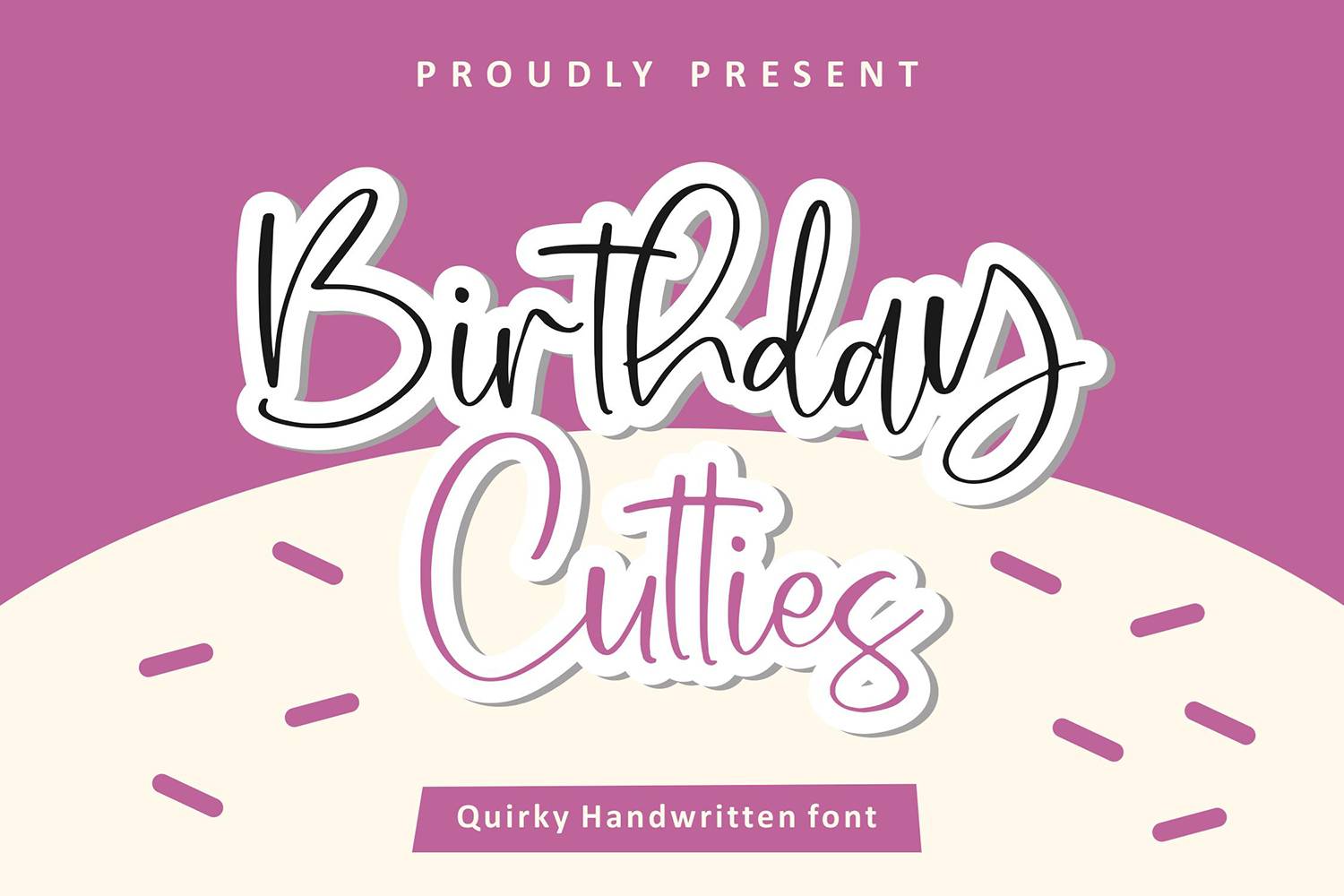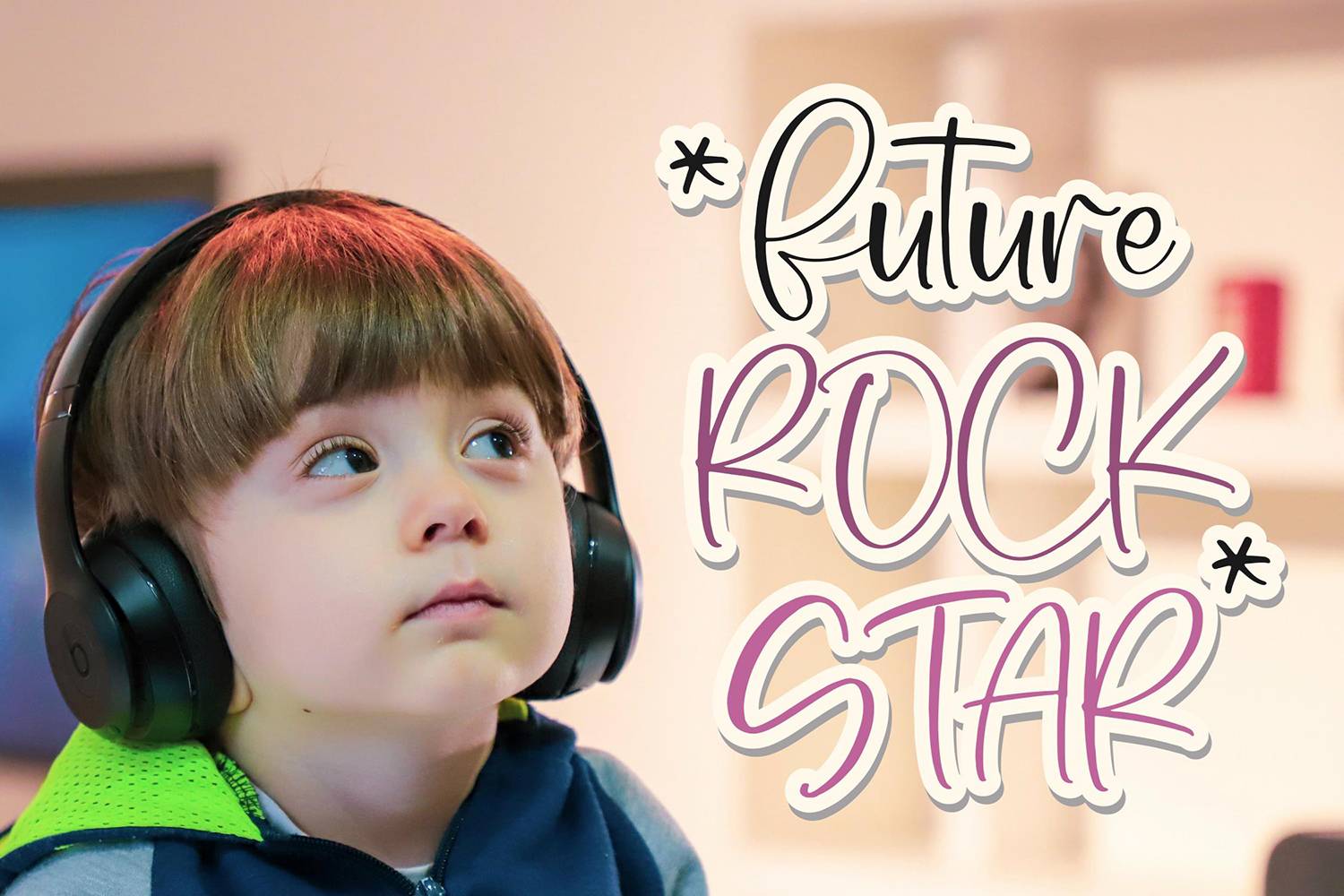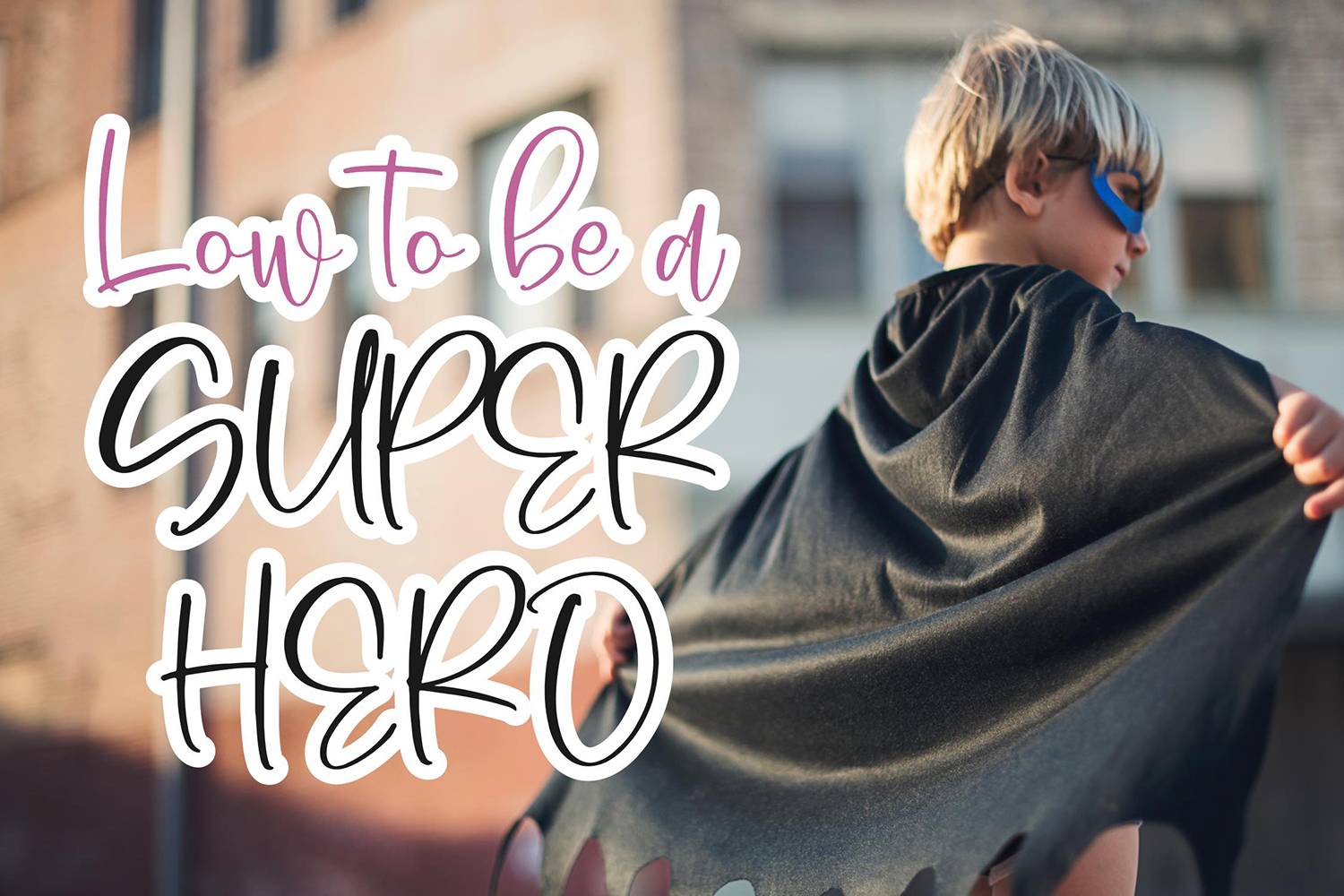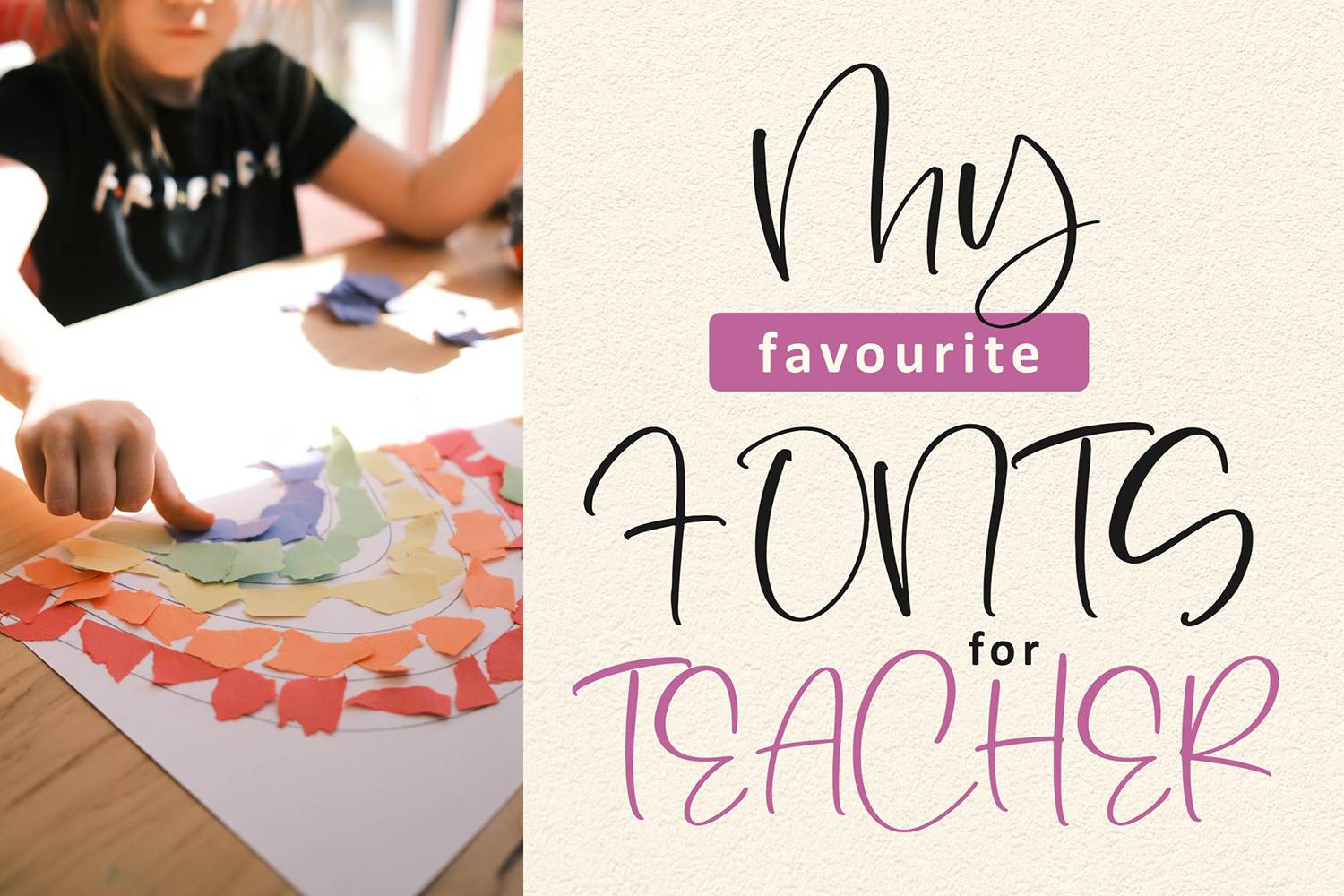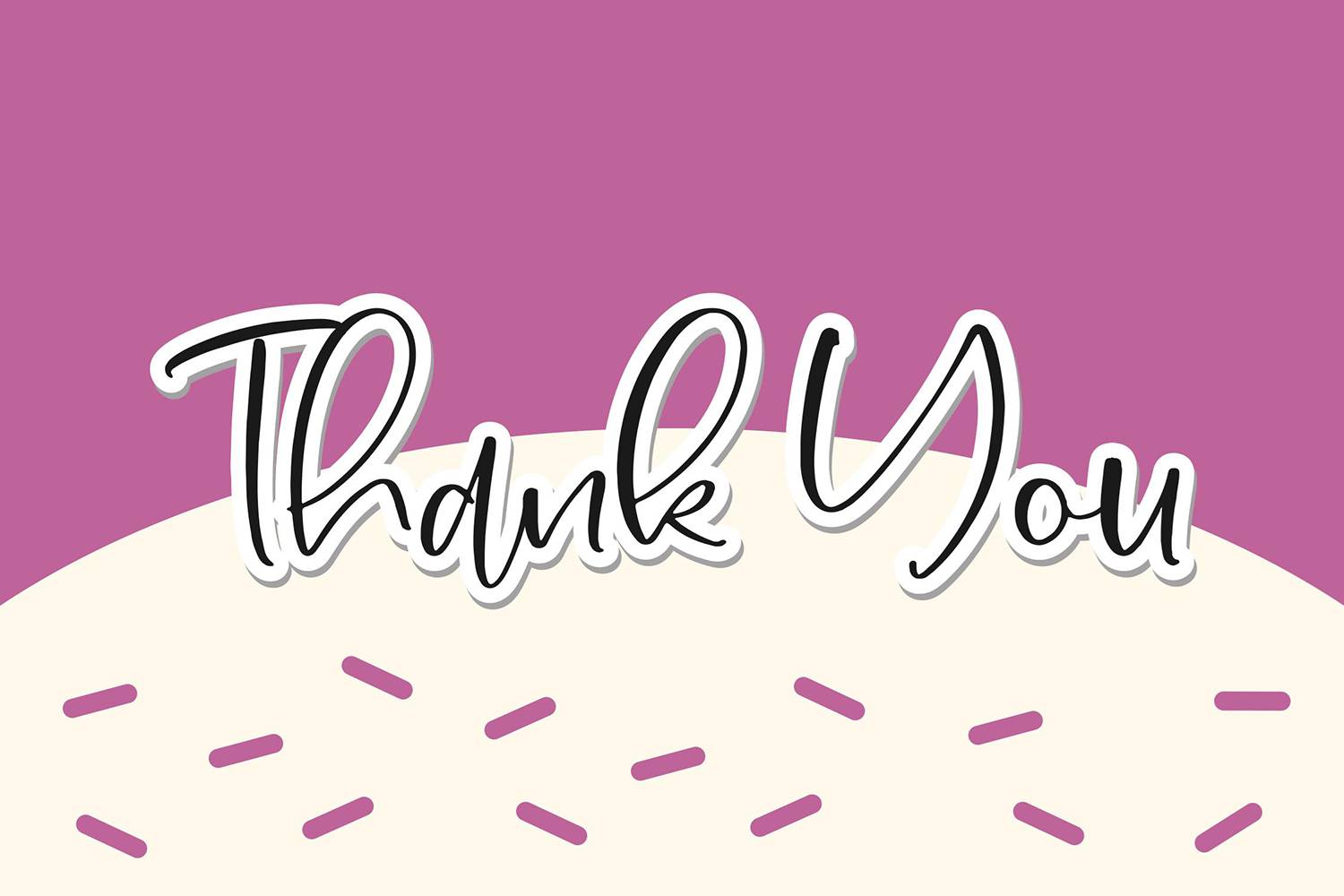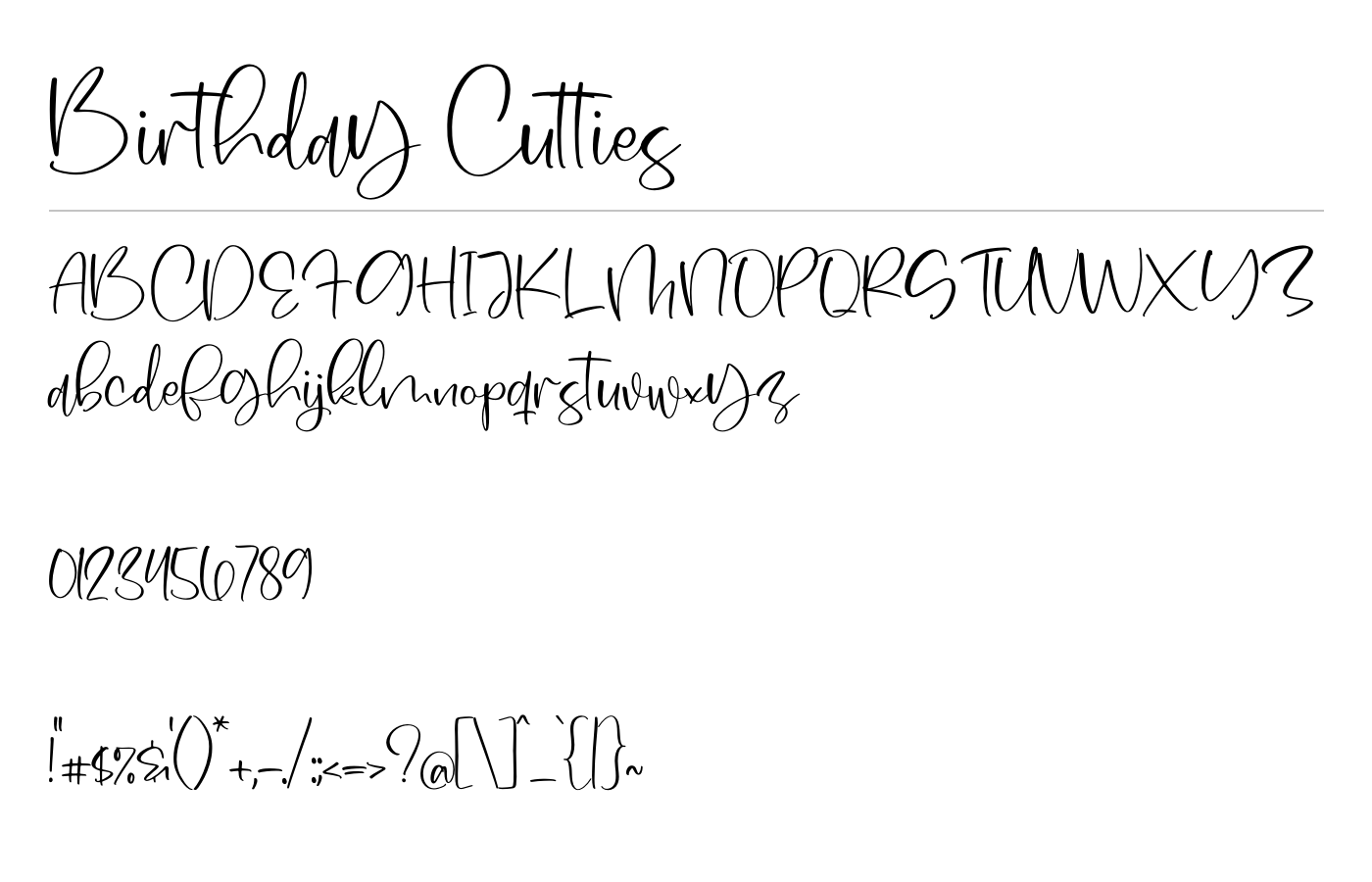
Birthday Cutties is a playful and elegant handwritten script font characterized by its thin, delicate strokes and tall, airy letterforms. Its casual, flowing style with unique loops and simple curves makes it perfect for creative projects like invitations, greeting cards, and branding that seek a personal, warm, and charming touch. This font works best in headlines and decorative uses where a friendly yet sophisticated feel is desired.
Birthday Cutties Font